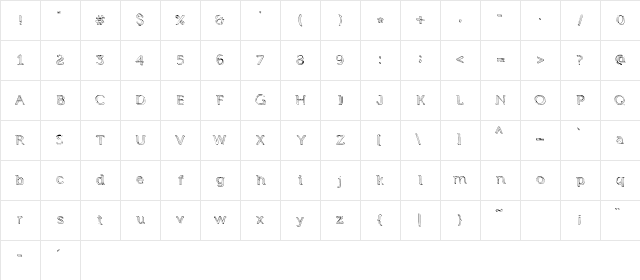
TreasureHunt Regular
Foundry: xerographer.com
Designer: Max Infeld
Design Context for TreasureHunt
TreasureHunt is a composed and adaptable typeface that performs quietly and consistently across a wide range of design contexts.